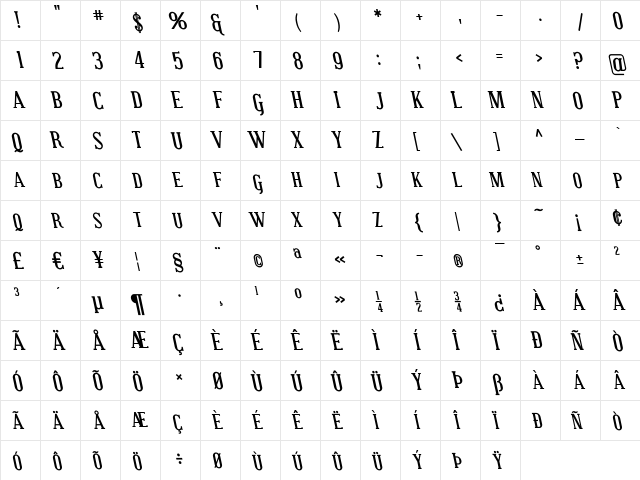
Covington SC Rev Bold Italic
Design Context for Covington SC Rev Typeface
Covington SC Rev is a composed and adaptable typeface that performs quietly and consistently across a wide range of design contexts. The dynamic lean of this cut emphasises speed and emphasis in any layout. Its bold stroke weight gives it real presence on the page.
Pro Tip: Try Covington SC Rev for annotation and caption copy alongside an upright companion — the contrast in angle creates a dynamic but ordered typographic system.